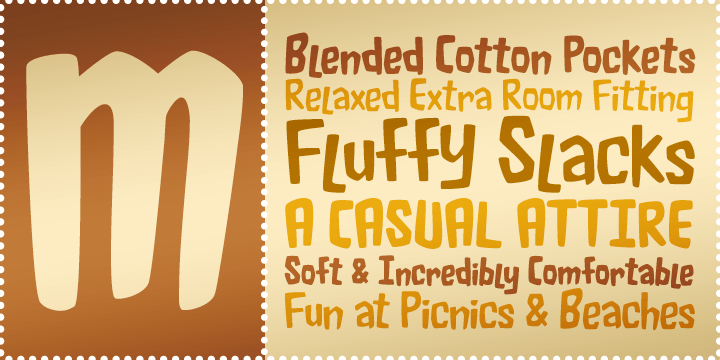
Mandingo BTN
Mandingo BTN is a fun, flowing display family with a soft, gummy personality and a lively comic-style feel. Its rounded, gooey construction gives it a playful sense of motion, making it a strong fit for posters, kids' graphics, packaging, comic-inspired design, playful branding, and attention-grabbing headlines. The family includes a broad range of widths and styles, from regular and oblique cuts to condensed and extended variations, giving designers flexible options for building energetic display typography. Mandingo BTN brings a bold, bouncy voice to layouts that need to feel fun, expressive, and full of character.
Mandingo BTN includes 258 glyphs.